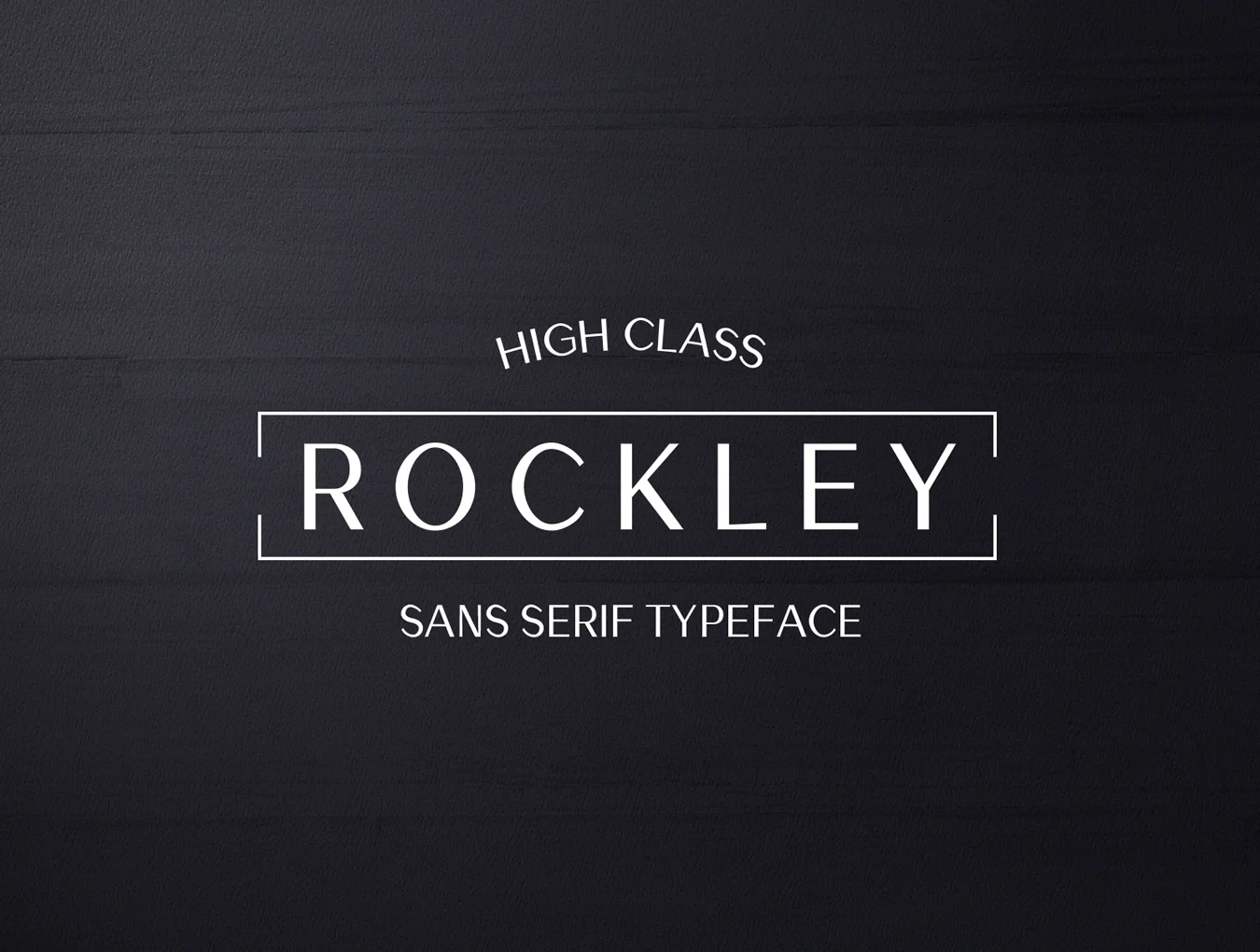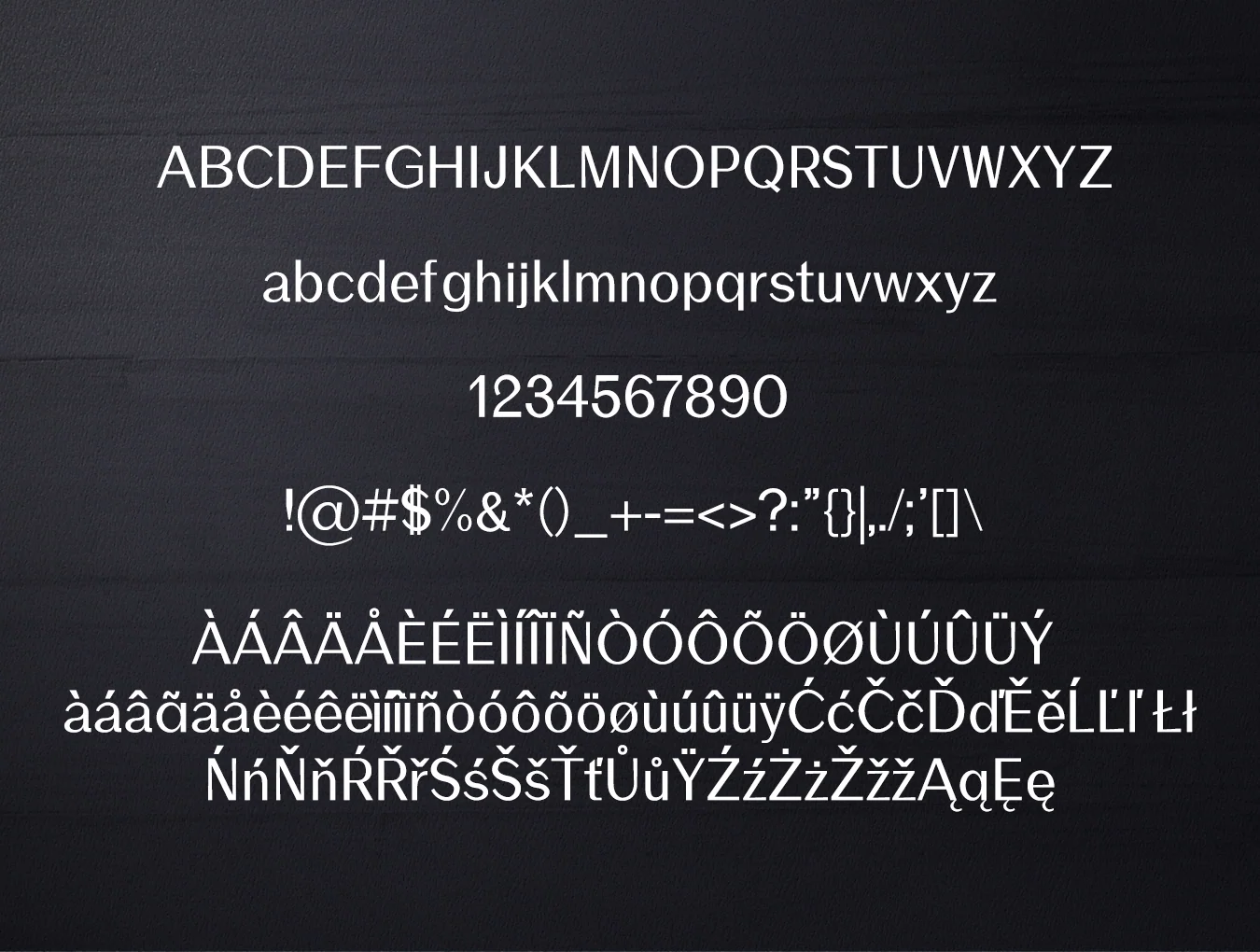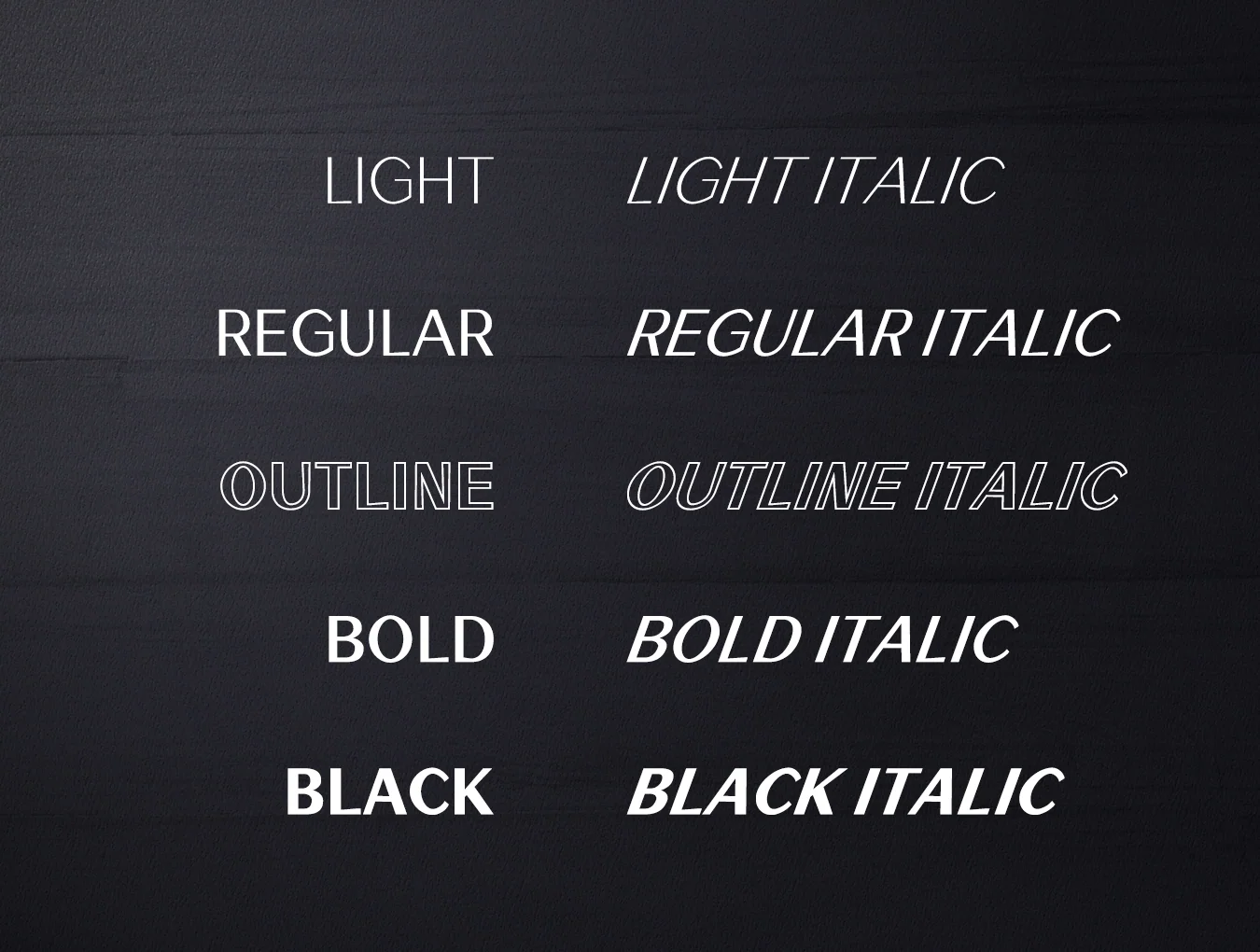
Rockley Sans Serif
Rockley is a premium sans serif family with 10 fonts.
Sans-serif typeface
295 character glyphs
Standard regular weight
Sans-serif typeface
295 character glyphs
Standard regular weight
Rockley Sans Serif Font Family includes 10 weights for creative templates and stationery. Ideal for clean modern designs, logos, headlines, banners, and layouts. It shines in all caps with wide spacing for an elegant feel, or in upper and lowercase for a timeless style. Styles: Regular, Italic, Outline, Light, Bold, Black, and matching italics.